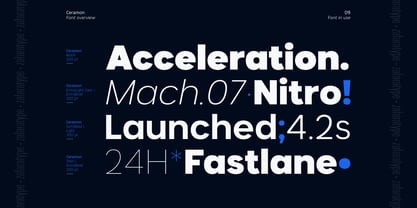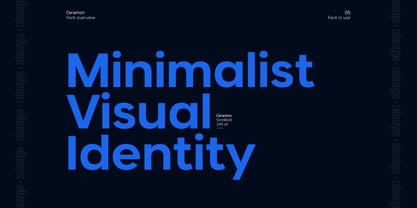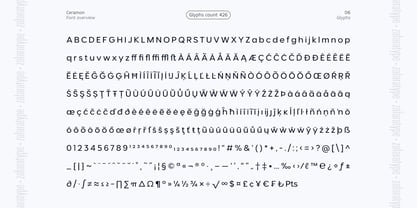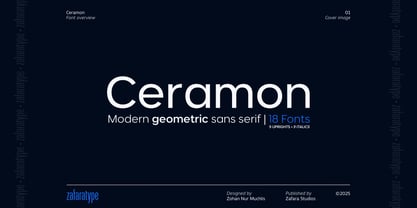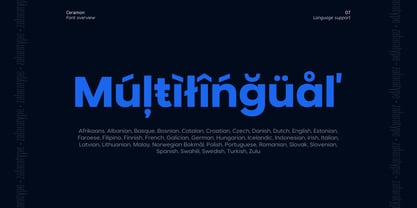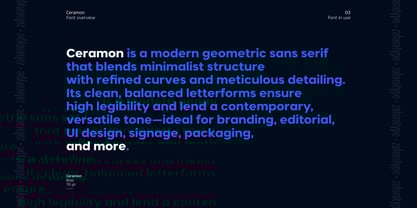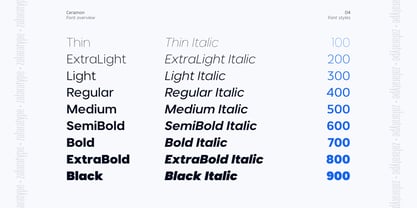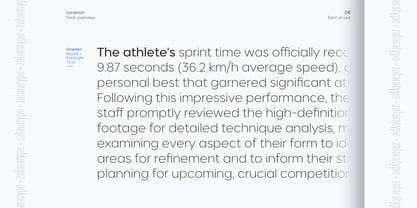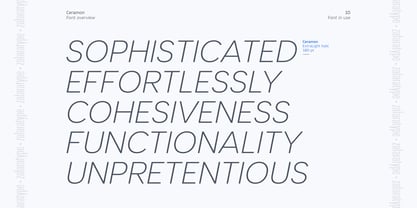
Ceramon
by Zafara Studios
The Ceramon Font Family was designed by Zohan Nur Muchlis and published by Zafara Studios. Ceramon contains 18 styles and family package options. More about this family
Ceramon is a modern geometric sans serif that blends minimalist structure with refined curves and meticulous detailing. Its clean, balanced letterforms ensure high legibility and lend a contemporary, versatile tone—ideal for branding, editorial, UI design, signage, packaging, and more.
Key Features:
- 18 styles: 9 uprights (Thin to Black) and 9 matching italics
- Extended Latin support
- 426 glyphs, including: Uppercase & lowercase, Punctuation & math symbols, Multilingual support, Case-sensitive forms, Standard ligatures, Localized forms, Ordinals, fractions, subscript & superscript, Historical forms
- Language Support:
Supports 36 languages, including Afrikaans, Albanian, Basque, Bosnian, Catalan, Croatian, Czech, Danish, Dutch, English, Estonian, Faroese, Filipino, Finnish, French, Galician, German, Hungarian, Icelandic, Indonesian, Irish, Italian, Latvian, Lithuanian, Malay, Norwegian Bokmål, Polish, Portuguese, Romanian, Slovak, Slovenian, Spanish, Swahili, Swedish, Turkish, and Zulu.
Designers: Zohan Nur Muchlis
Foundry: Zafara Studios